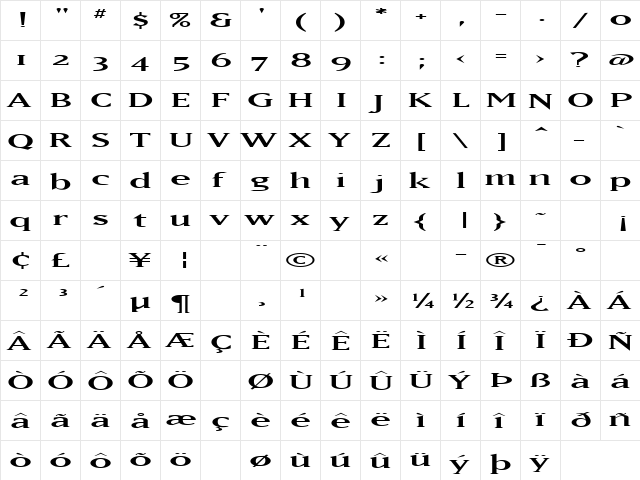
MatrixWideOldstyle Regular
Design Context for MatrixWideOldstyle Typeface
MatrixWideOldstyle carries the refined structure of traditional serif typography, with bracketed terminals and considered proportions that communicate credibility and craft.
Pro Tip: Set MatrixWideOldstyle with slightly loose tracking in headlines to let each letterform's detail read clearly at display sizes.